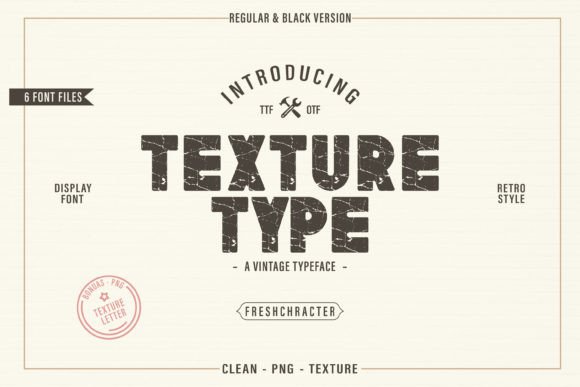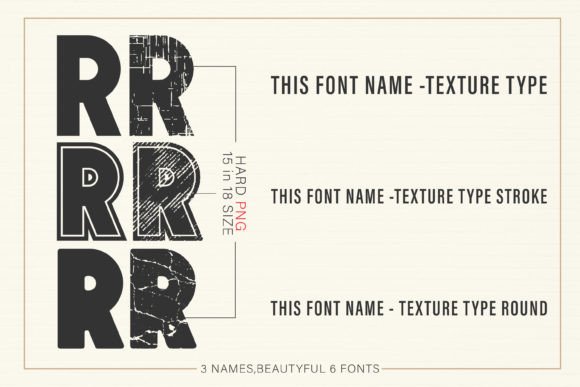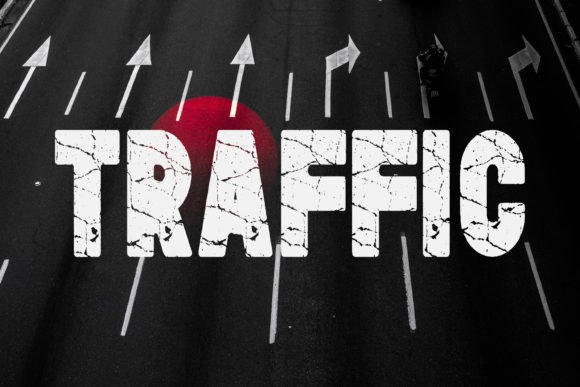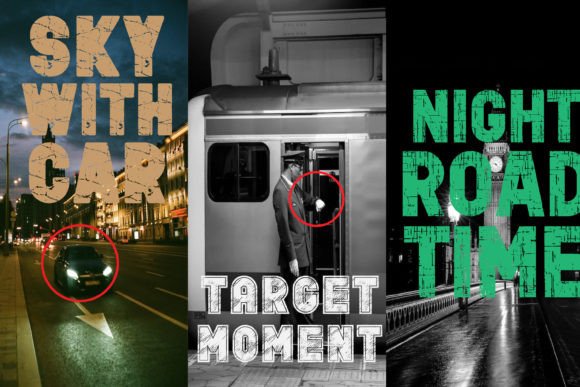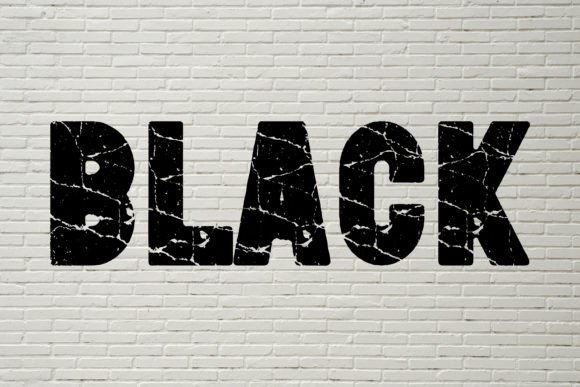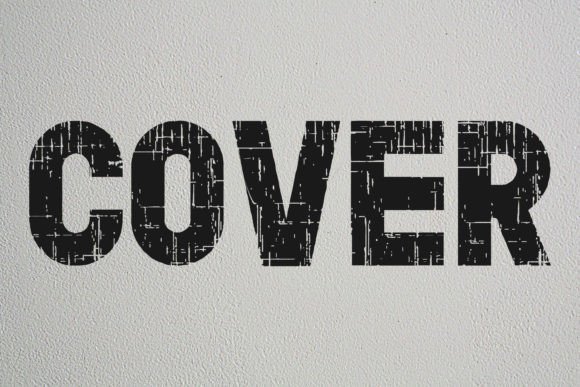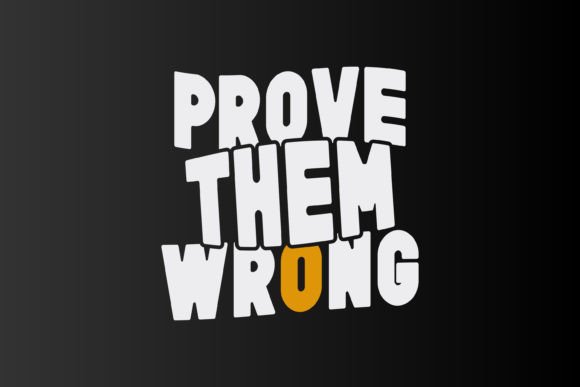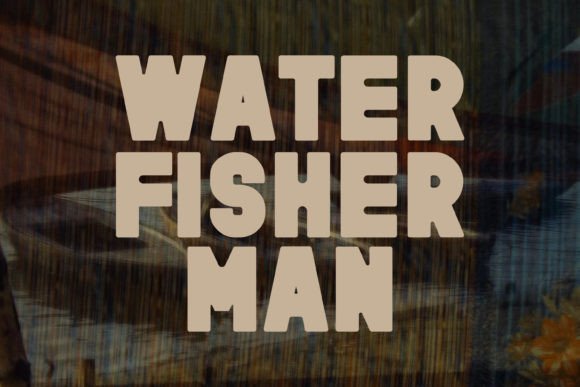
Texture Type Font
Texture Type is a vintage, retro grunge color font. Add it confidently to your projects, and you will love the results. This font is the best for your hard work. You can try it for mugs, t-shirts, baby shirts, covers, headings, etc.